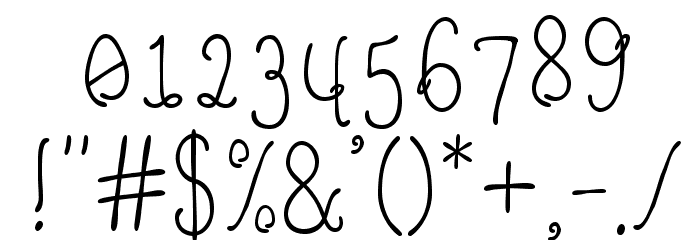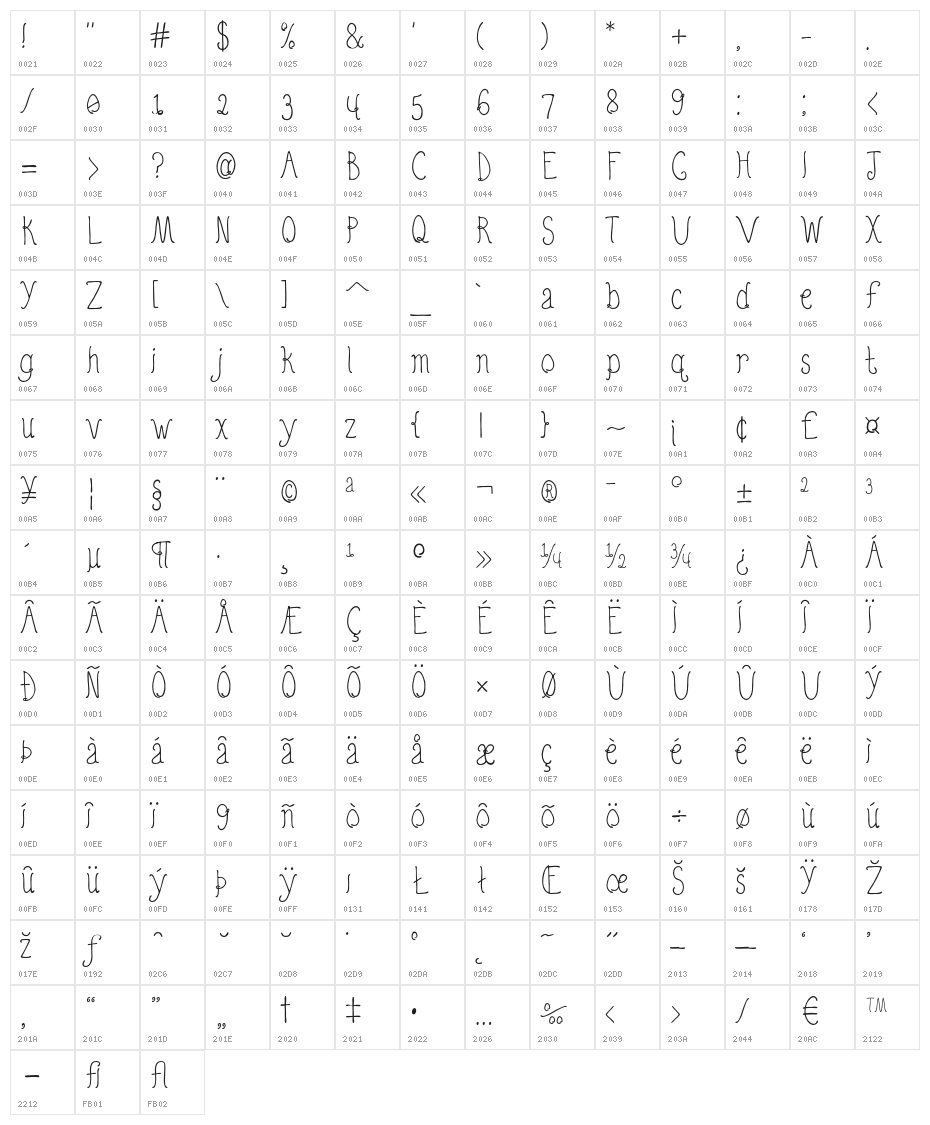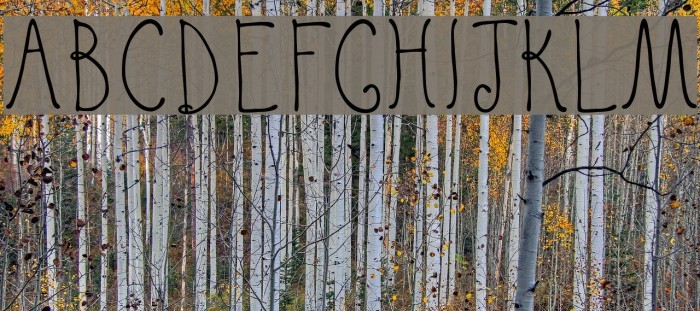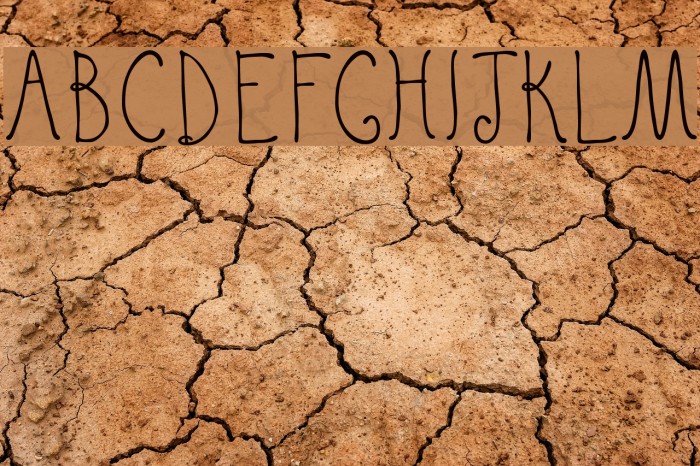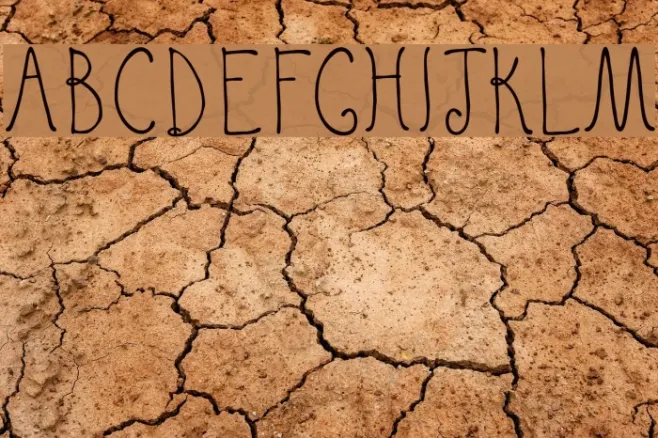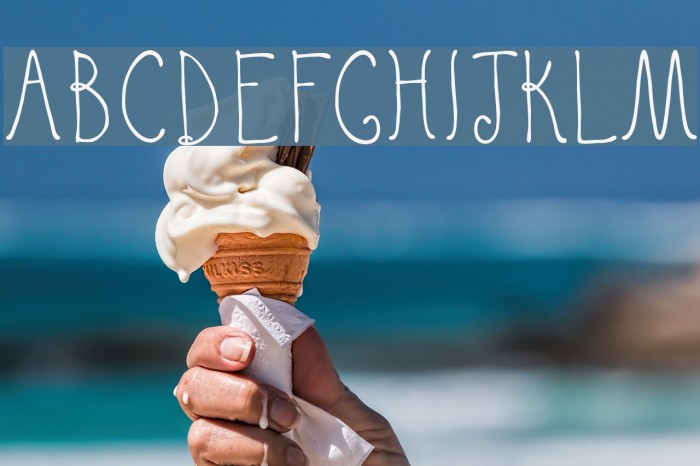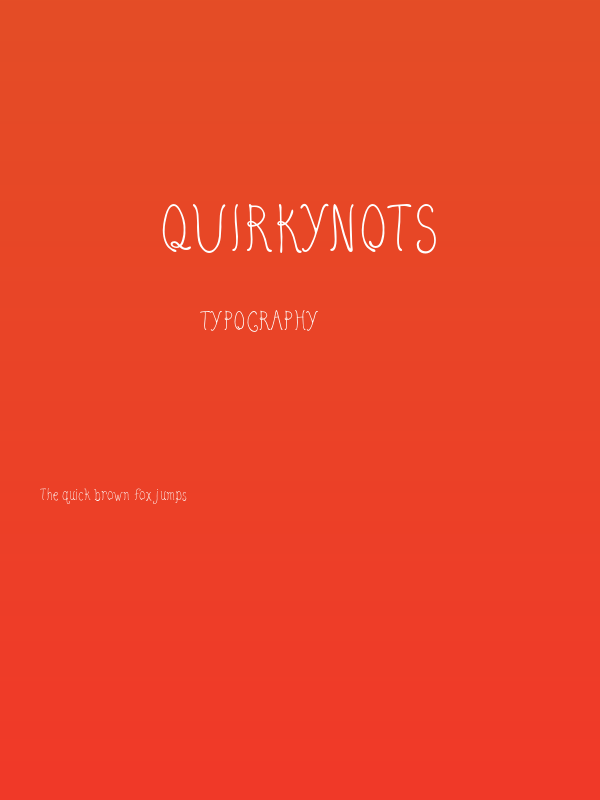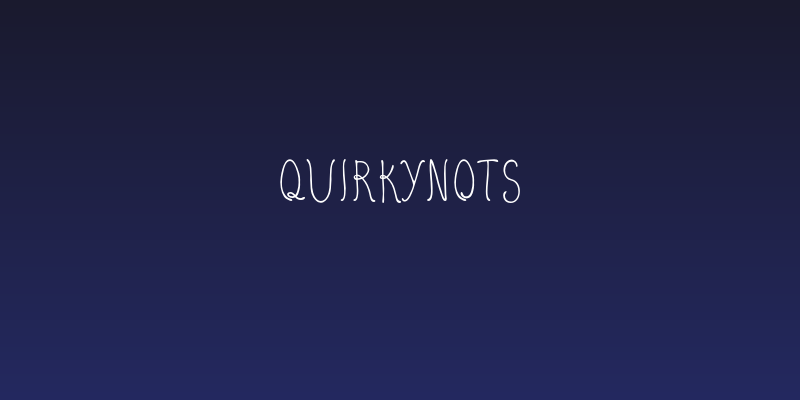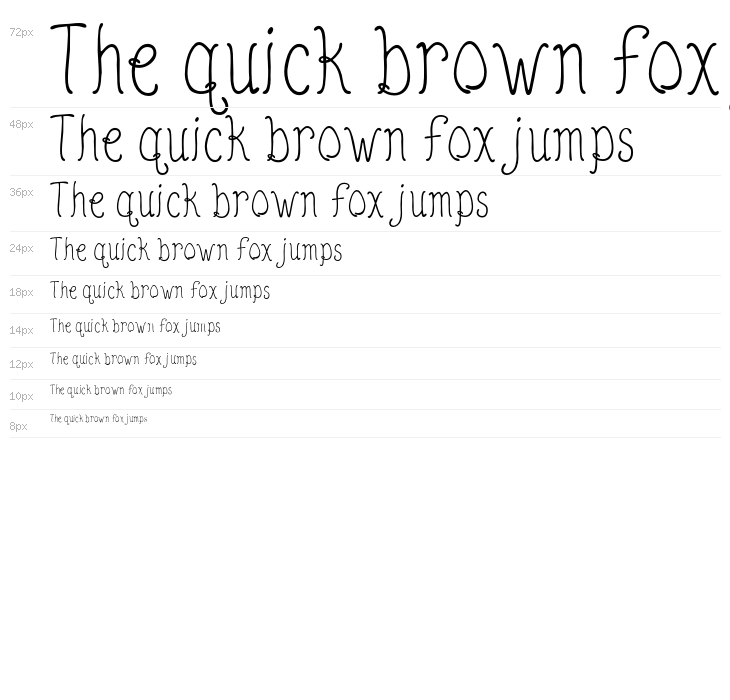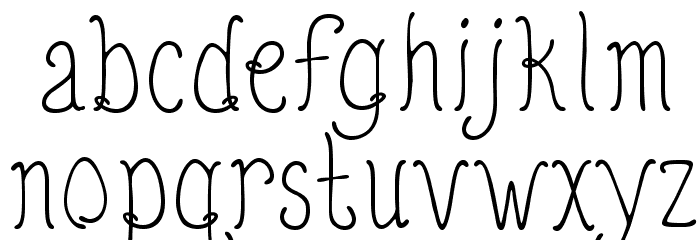
QuirkyNots Font
This font features a playful and whimsical design, characterized by its curly and looping strokes that give it a lively and energetic feel. The letters are tall and slender, with a consistent stroke width that maintains readability while adding a touch of elegance. The uppercase and lowercase letters share a similar style, with the lowercase letters having a slightly more relaxed and informal appearance. The numerals and special characters follow the same quirky design, making the font suitable for creative and informal projects. Its unique style makes it stand out, adding personality and charm to any text.
| Overall Style | Whimsical |
| Proposed Projects | Ideal for children's books, greeting cards, playful branding, and creative posters. |